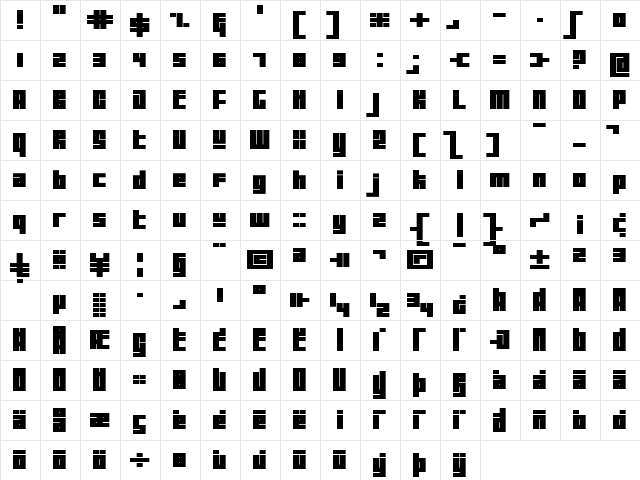
Tutor Regular
| Foundry | studio Kmzero |
| Designer | Francesco Canovaro |
Design Context for Tutor Typeface
Tutor takes a measured approach to typography — its balanced proportions and neutral character make it a reliable workhorse for both digital and print work.